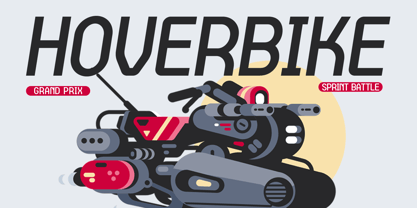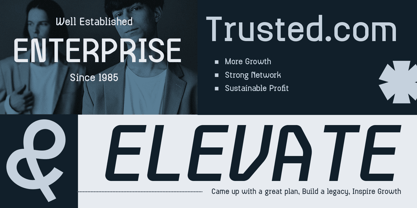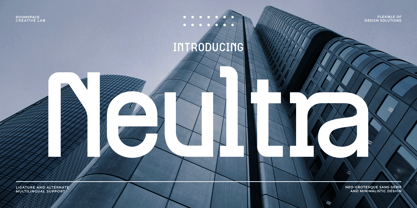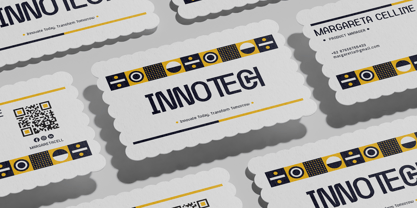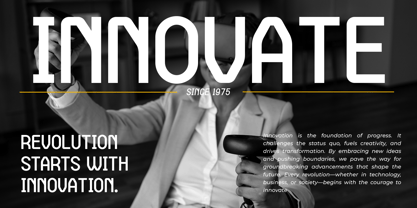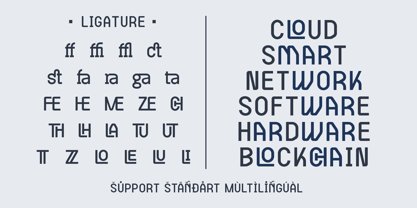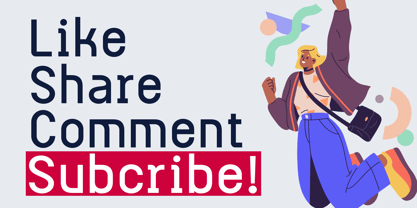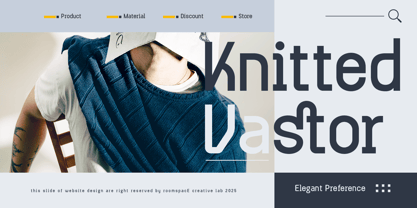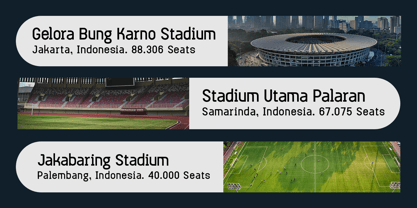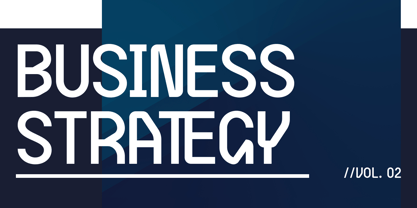
Neultra
by Jafar07
The Neultra Font Family was designed by Bakhrudin Ja'far and published by Jafar07. Neultra contains 2 styles and family package options. More about this family
Neultra is a sleek and modern sans-serif typeface that blends futuristic aesthetics with a subtle touch of flexibility. Its rounded edges soften the rigid structure, creating a perfect balance between precision and approachability. Designed for designers, businesses, and creatives who seek a clean yet unique typographic style, Neultra stands out with its minimalistic yet forward-thinking design. Whether for branding, web interfaces, editorial layouts, or high-tech projects, this font elevates your work with a contemporary and versatile touch. Neultra adapts effortlessly to various design needs. Let your creativity flow with this future-ready typeface.
A little from my personal design & background: My name is Bakhrudin Ja'far, I live in Malang, Indonesia. I am currently completing my degree in visual communication design and I have worked as a lettering artist and logo designer for many years. I finally started my studio called roocspace creative lab (jafar07) Studio a few months ago and with my team made my letters into typography.